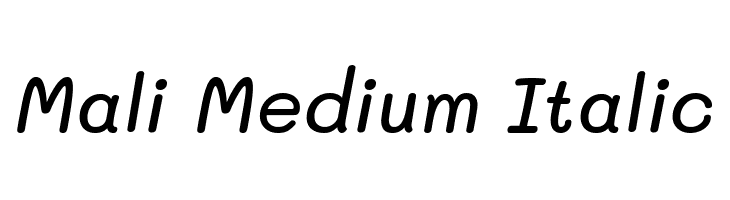
( Fonts by Jonathan S. Harris - www.tattoowoo.com. Personal-use only. For commercial use please contact owner. )
A bold, expressive font with brush-like strokes and a raw, artistic feel.
( Fonts by DmLetter31 - Dimas Prasetyo - Personal-use only. For commercial use please contact owner. )
A bold, handwritten font with a playful and energetic style.
( Fonts by Origin Type )
A playful handwritten font with a casual and friendly appearance.
( Fonts by Viktor Örneland )
A playful, bold, and cartoonish font with rounded, hand-drawn characters.
( GroovyJournal - www.groovyjournal.com )
A playful, handwritten-style font with a messy ink pen appearance.